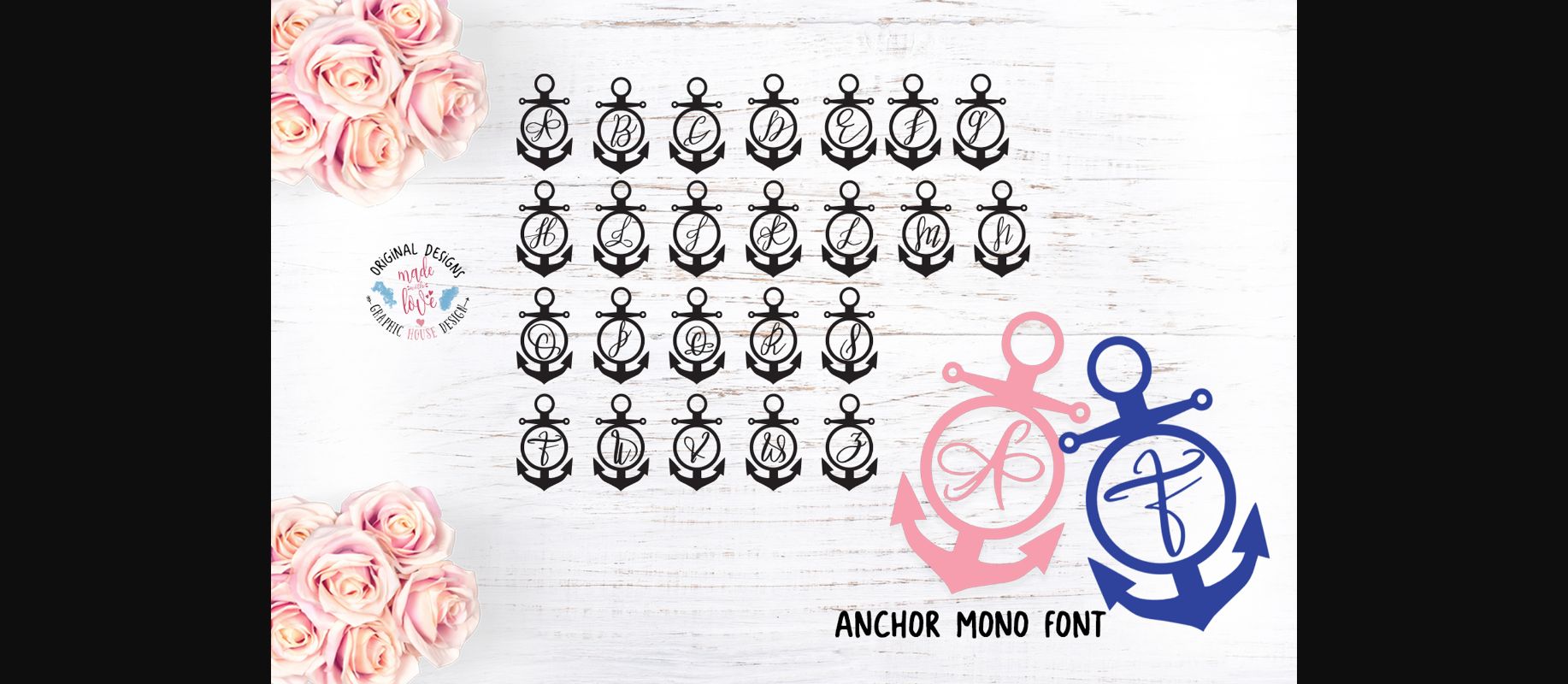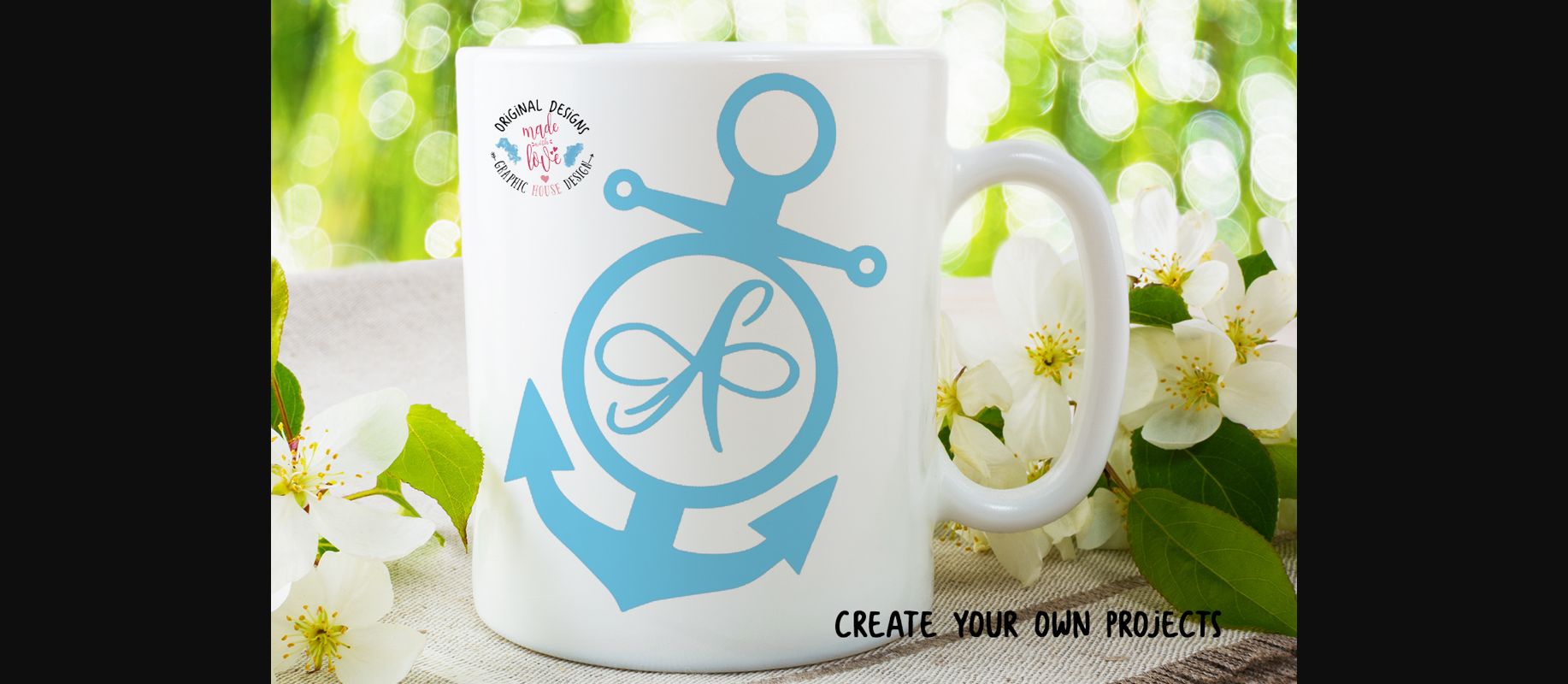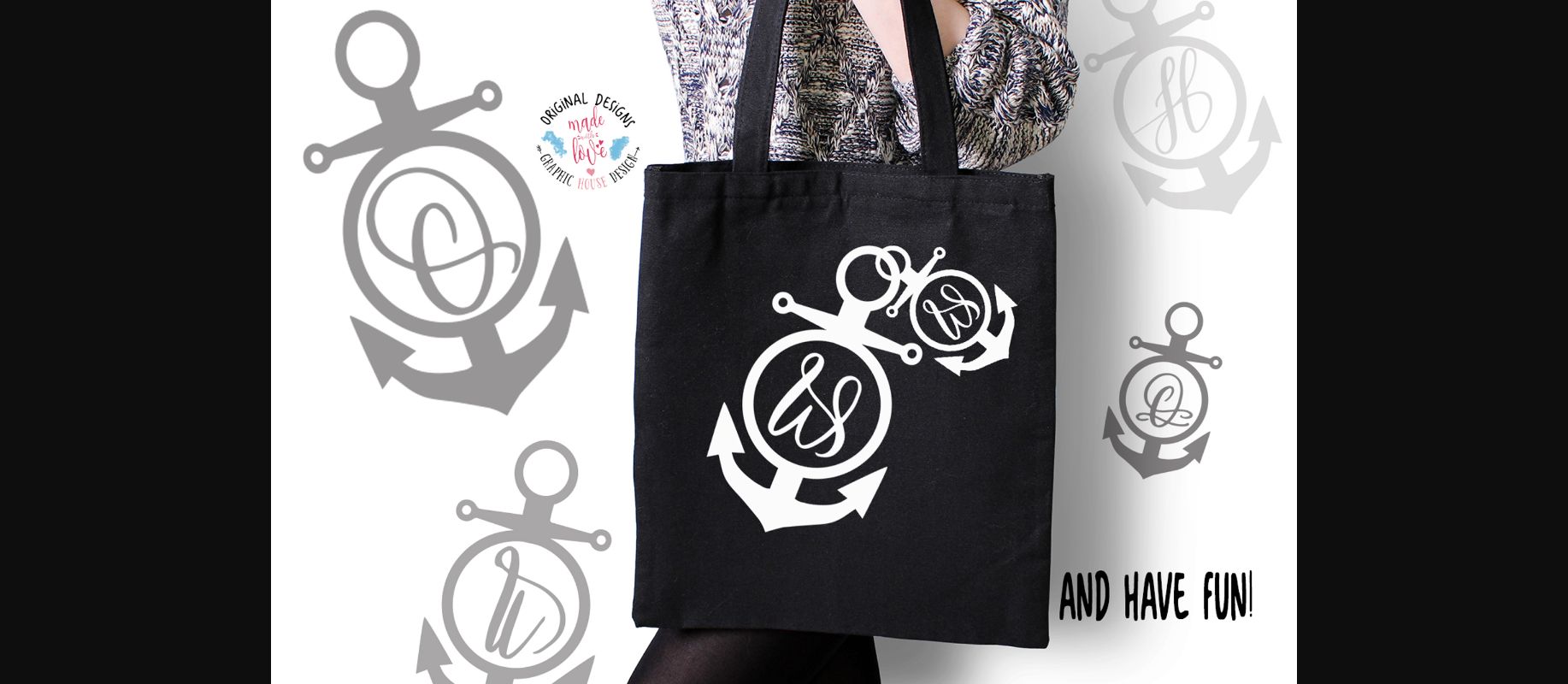
Anchor Font
About Anchor Font
Anchor is a beautiful decorative font with a charming feel. It will add a lovely twist to any nautical and maritime crafts idea!